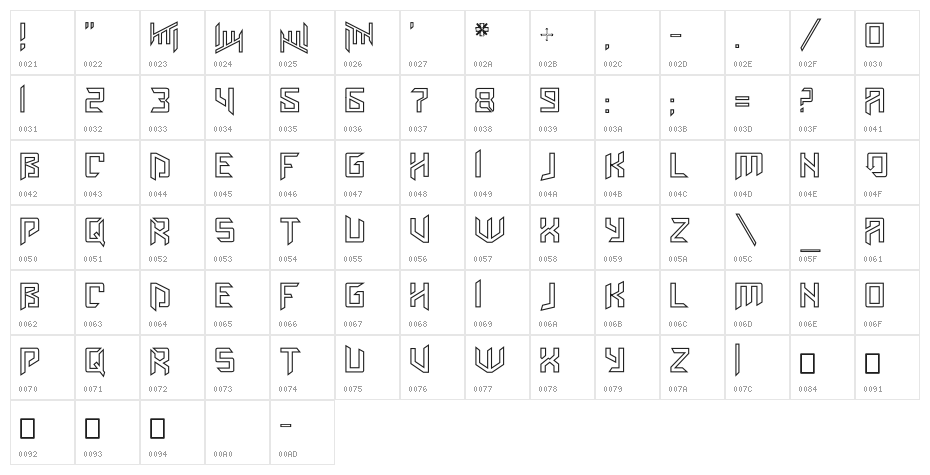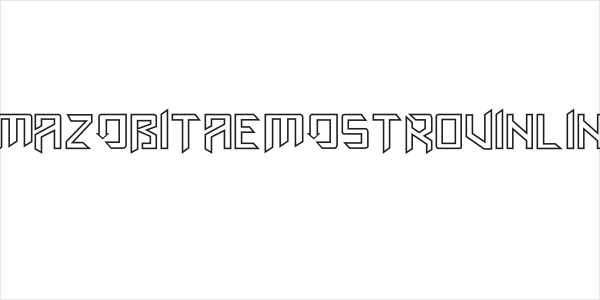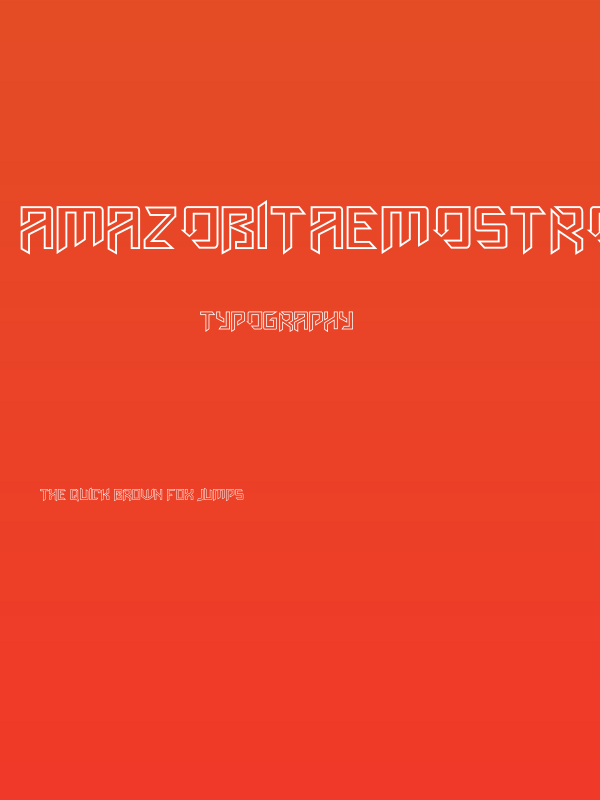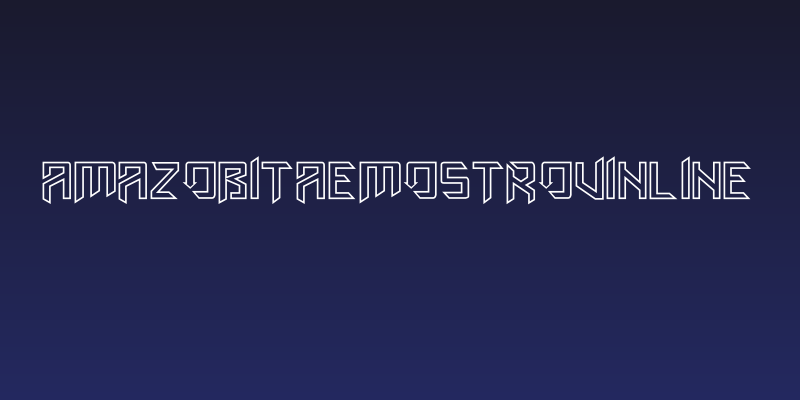
AmazObitaemOstrovInline Font
AmazObitaemOstrovInline Description
This font features a bold, geometric design with sharp angles and a futuristic aesthetic. Each character is outlined, creating a striking inline effect that emphasizes its angular structure. The uppercase and lowercase letters maintain a consistent style, with a unique, edgy appearance. Numbers and special characters are designed to match the overall theme, making the font suitable for modern and tech-oriented projects. The font's distinct style is ideal for creating eye-catching headlines or logos that require a contemporary and dynamic look.
| Proposed Projects | Ideal for tech branding, futuristic posters, video game titles, and sci-fi themed designs. |